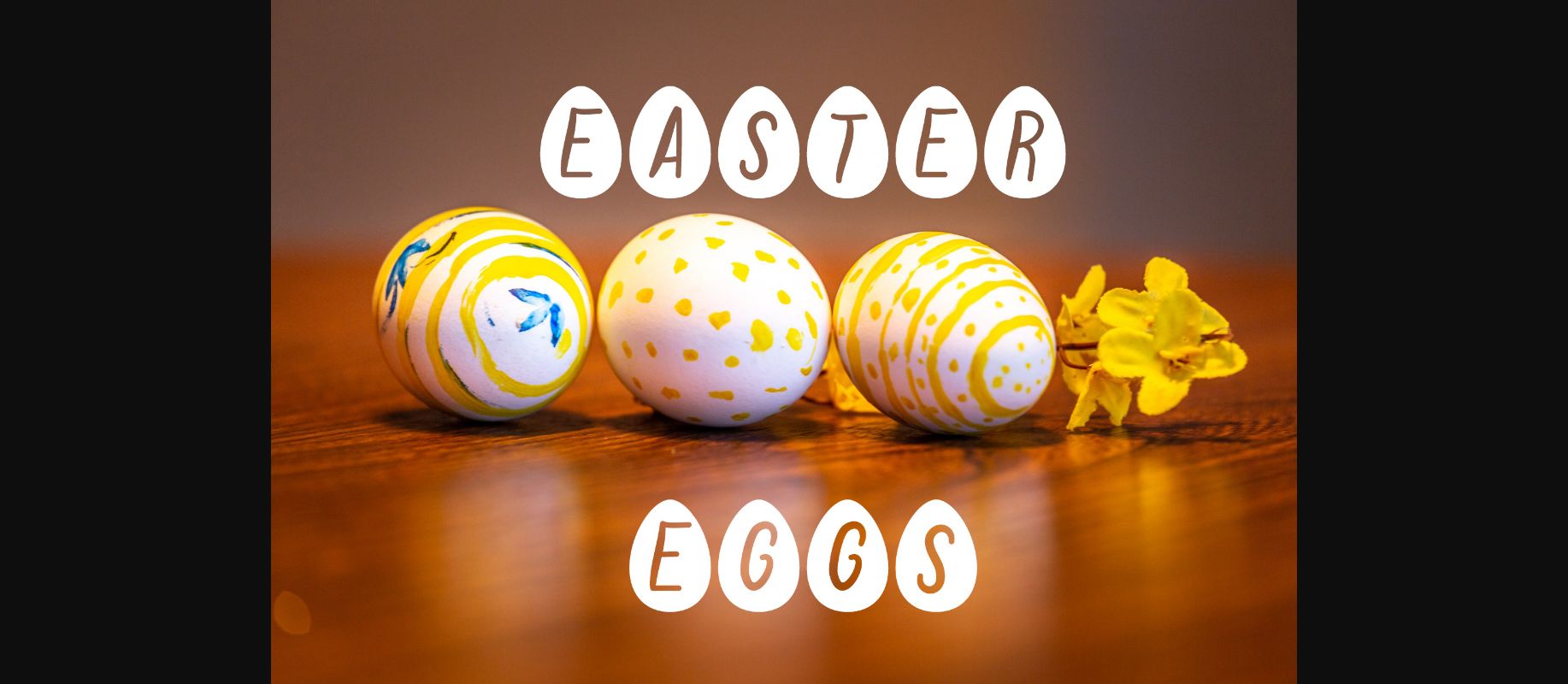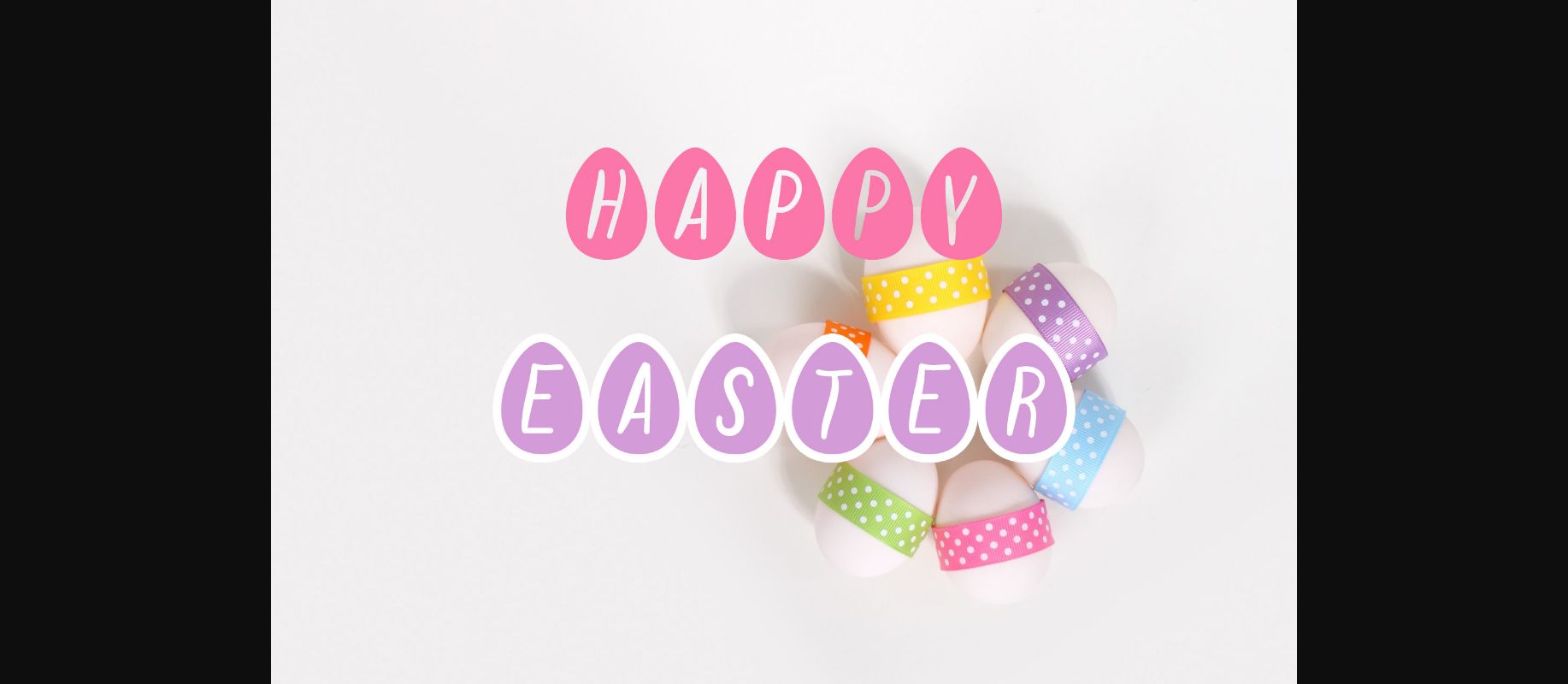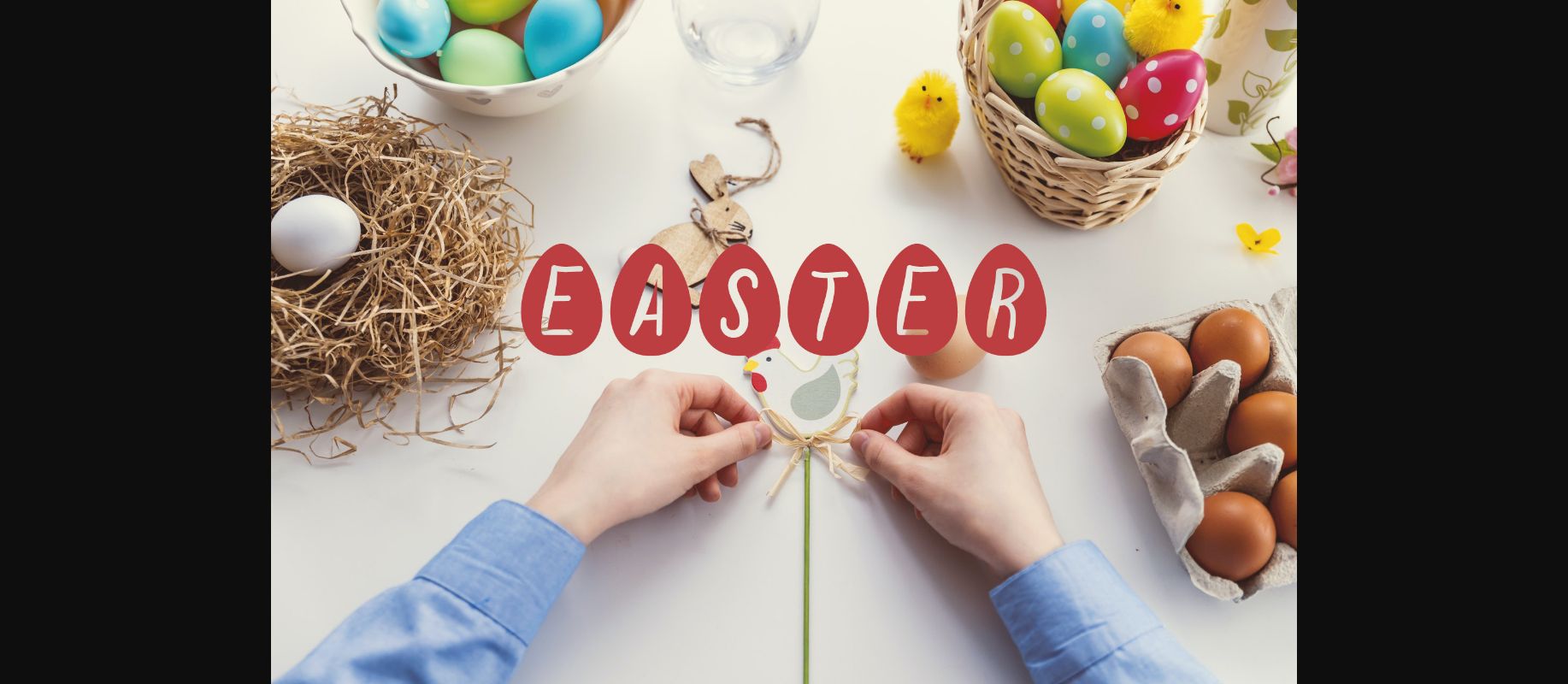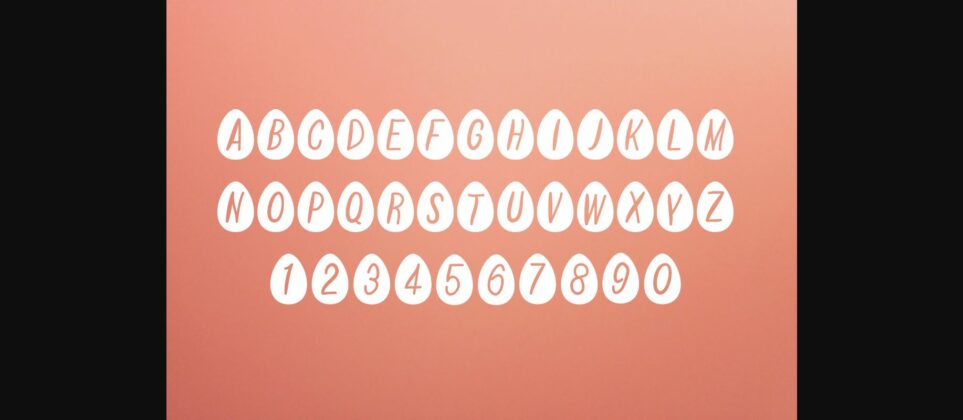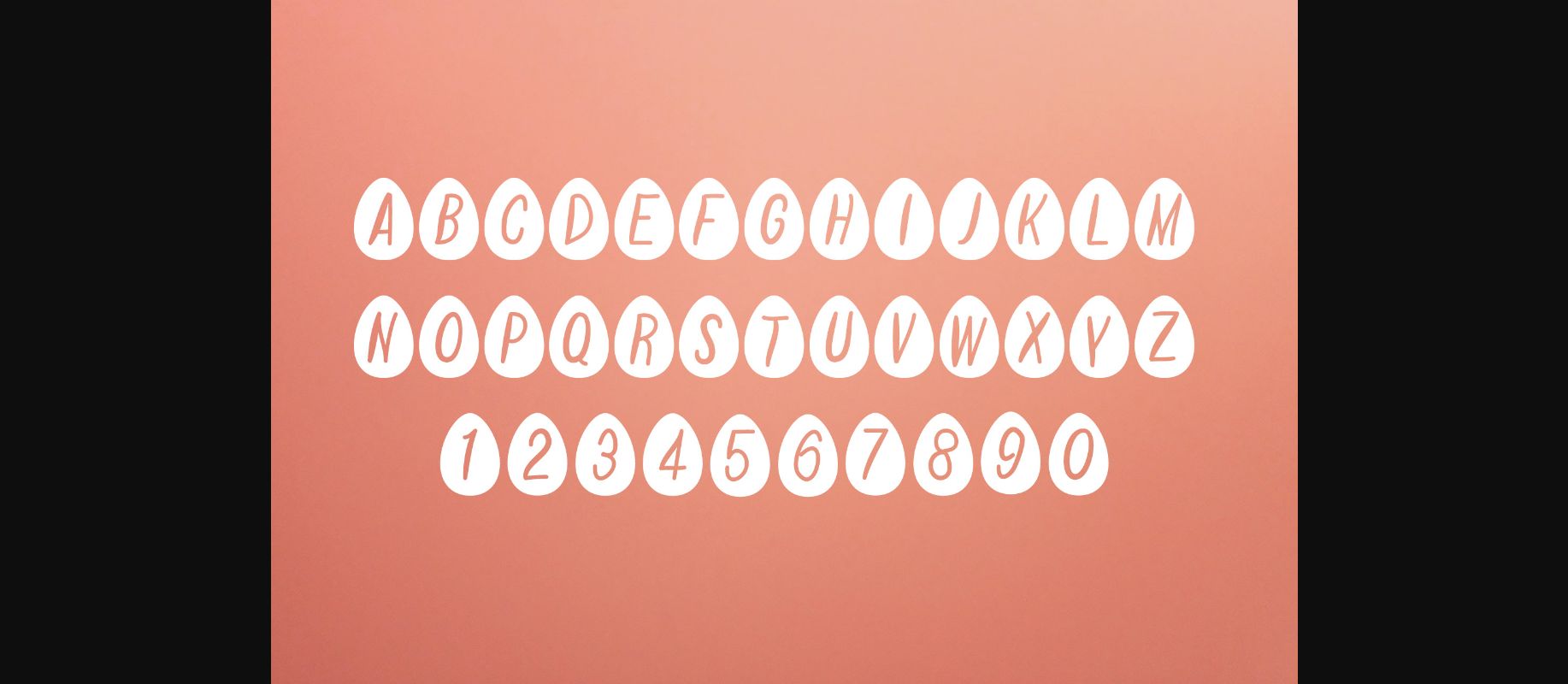
Easter Eggs Font
About Easter Eggs Font
Easter Eggs is cute and authentic decorative font. It can be used for various purposes related to Easter, such as cards, invitations, and any other design related to this beautiful holiday.